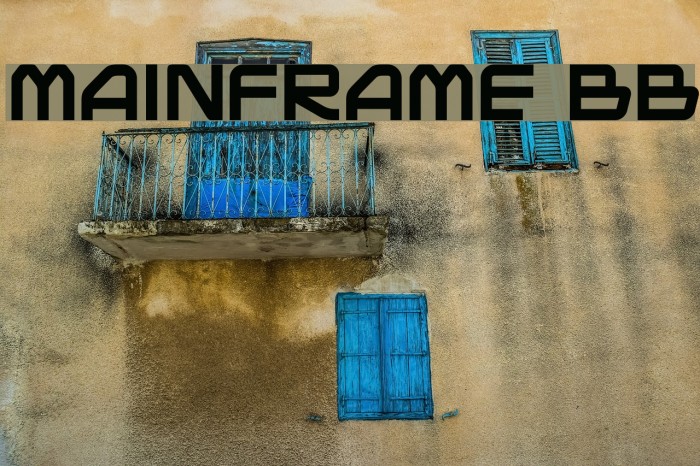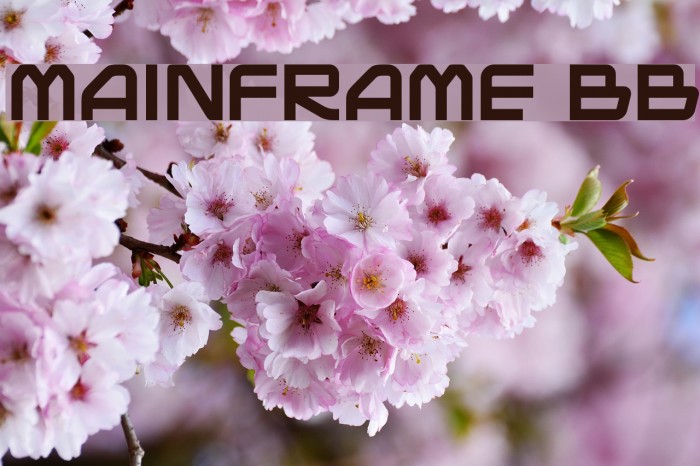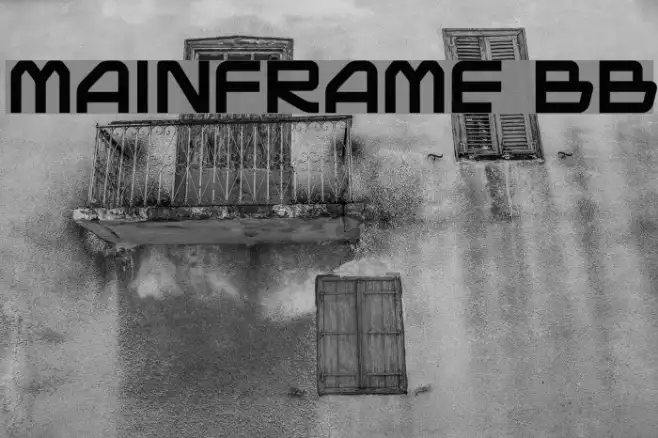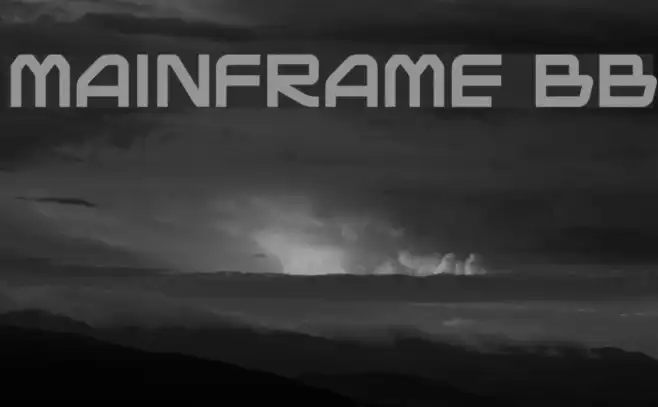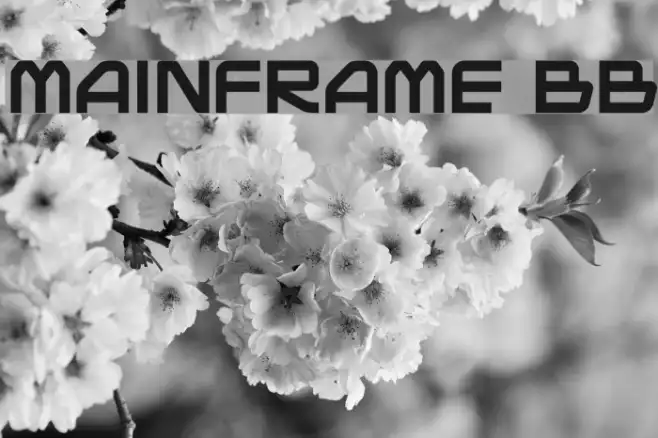
Mainframe BB Font
This font features a bold, futuristic design with angular lines and geometric shapes. The characters are uniformly structured, giving a sense of modernity and technological advancement. The uppercase letters are distinct with sharp edges, while the lowercase letters maintain a consistent style, enhancing readability. Numbers and special characters are designed to match the overall aesthetic, making them suitable for digital and print media. The font's unique style is ideal for projects that require a modern and edgy look, such as tech branding, video game titles, or sci-fi themed designs.
A bold, futuristic font with geometric shapes and angular lines.
- Font: Mainframe BB
- Proposed Projects: Ideal for tech branding, video game titles, sci-fi themed designs, and digital media.